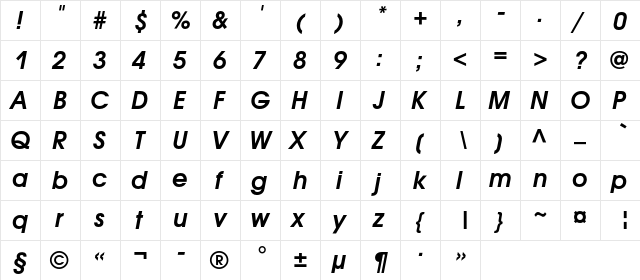
AvantGardeC Bold Italic
Design Context for AvantGardeC Typeface
AvantGardeC is a composed and adaptable typeface that performs quietly and consistently across a wide range of design contexts. Its italic angle brings a sense of urgency and motion to the letterforms. The heavy weight commands attention and anchors typographic hierarchies.